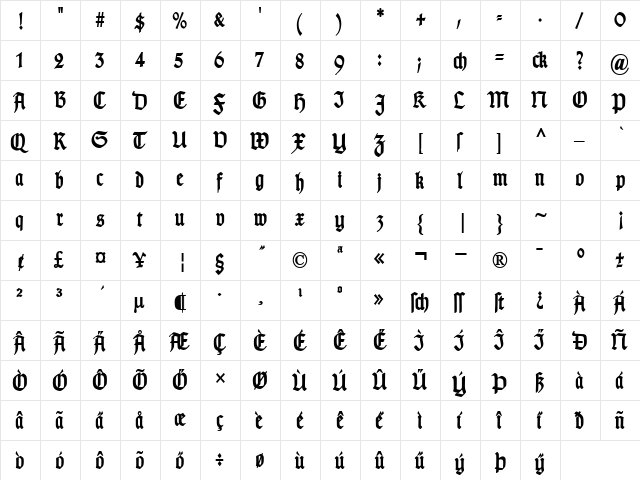
TypographerGotisch Schmal Bold
| Designer | Dieter Steffmann |
Design Context for TypographerGotisch Schmal Typeface
TypographerGotisch Schmal takes a measured approach to typography — its balanced proportions and neutral character make it a reliable workhorse for both digital and print work. Its bold stroke weight gives it real presence on the page.